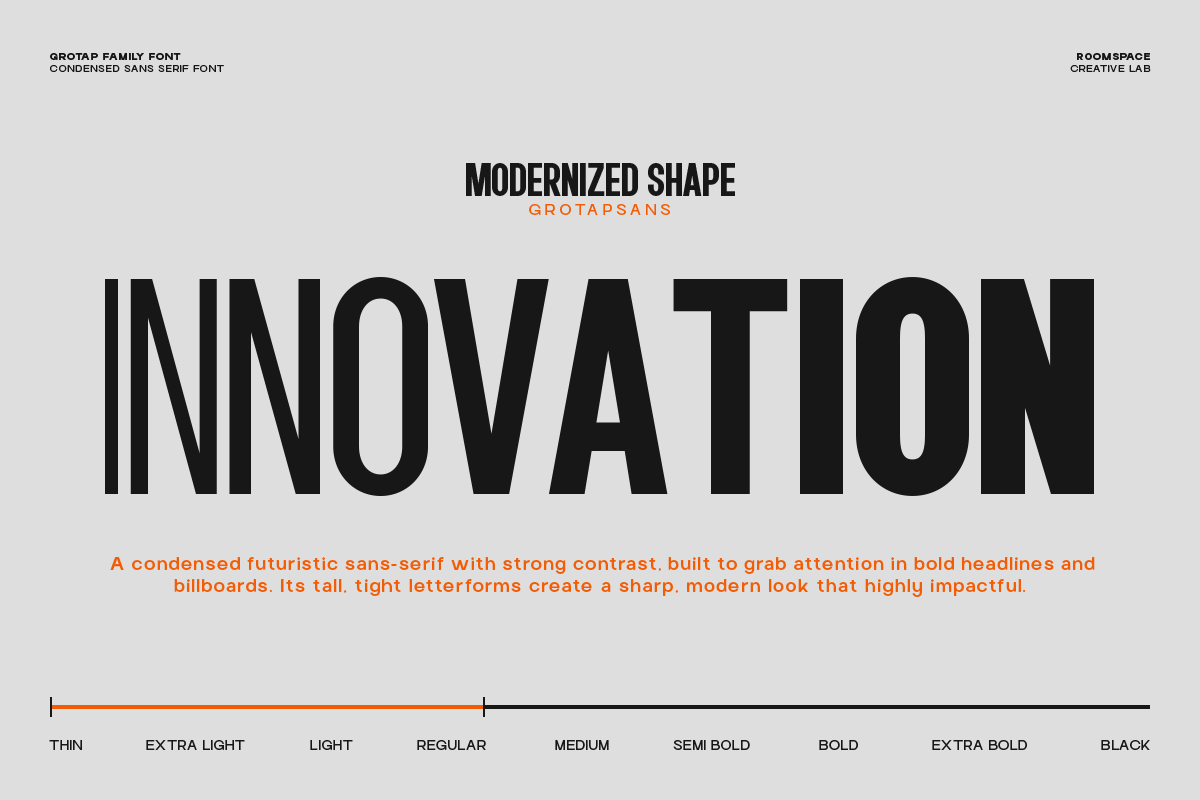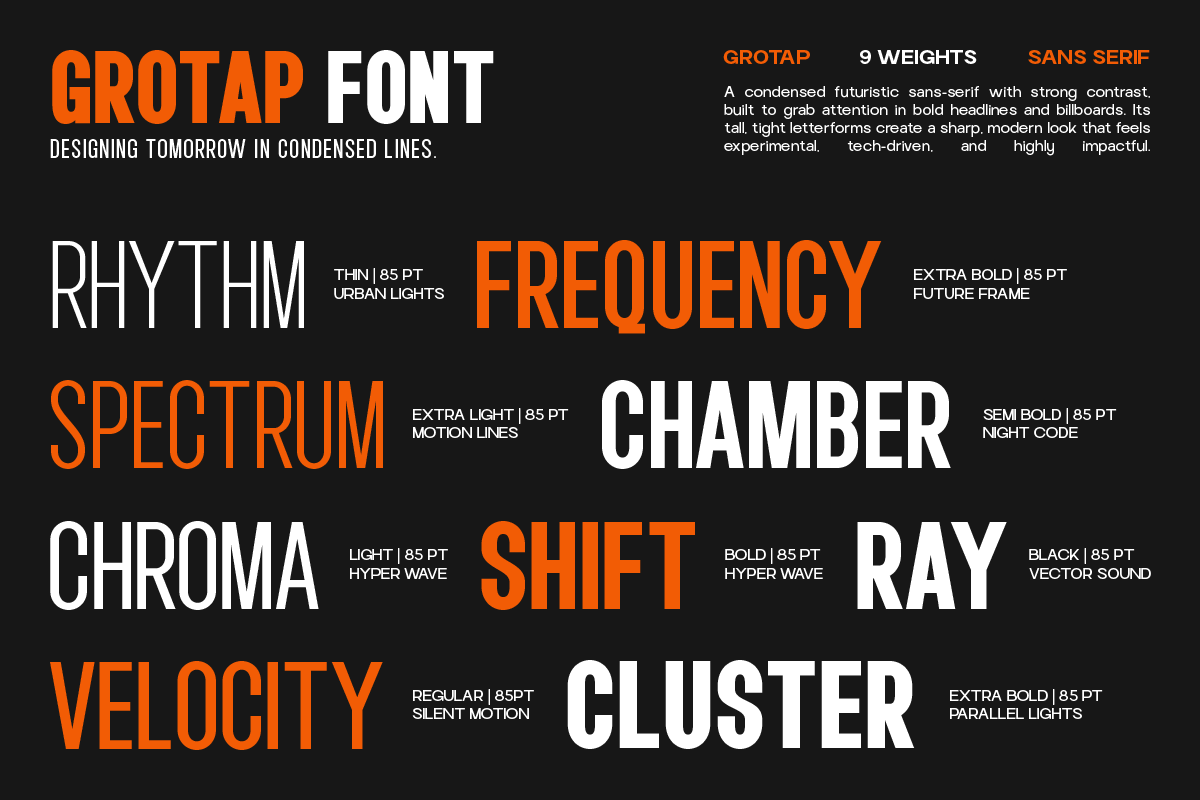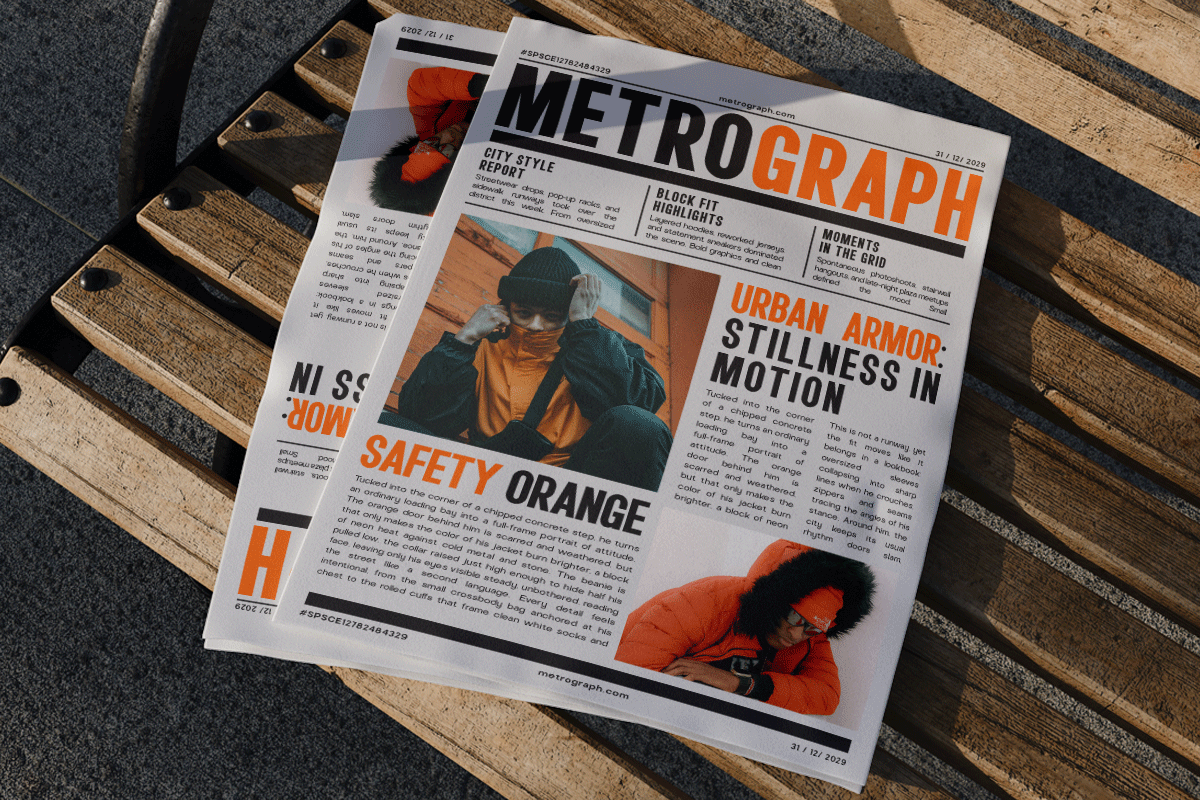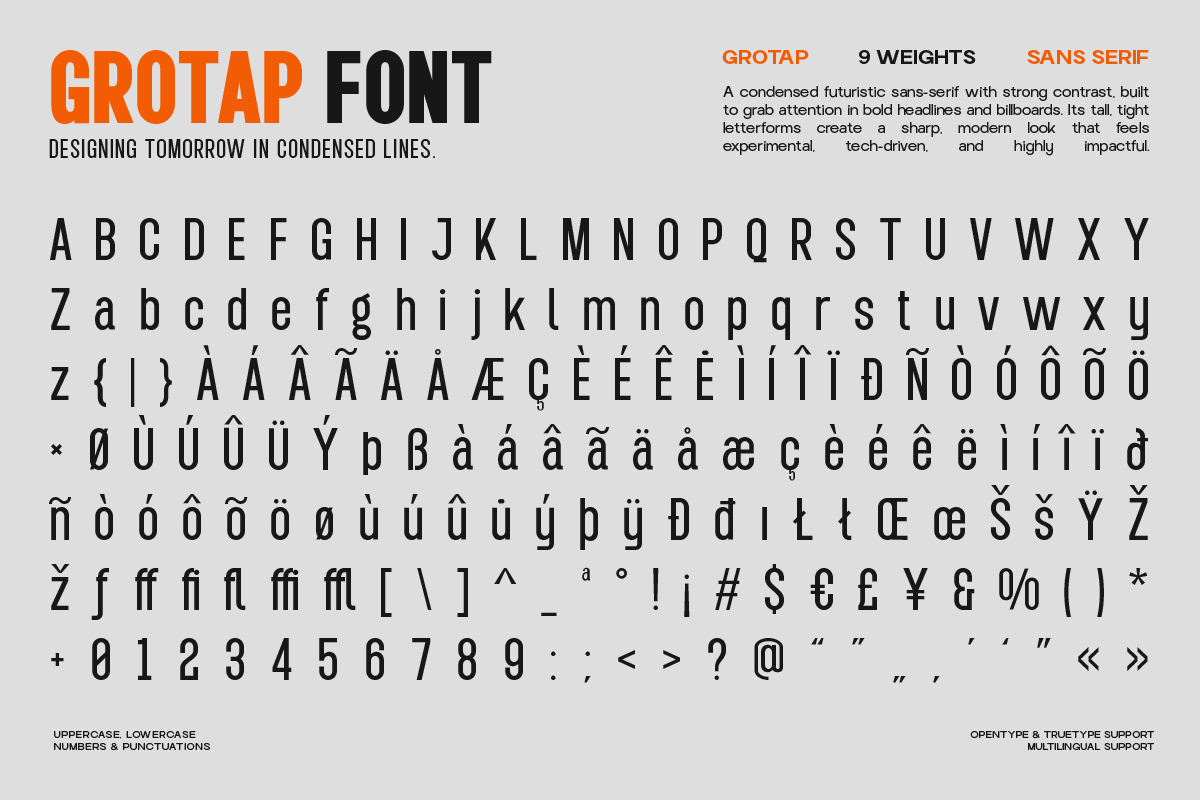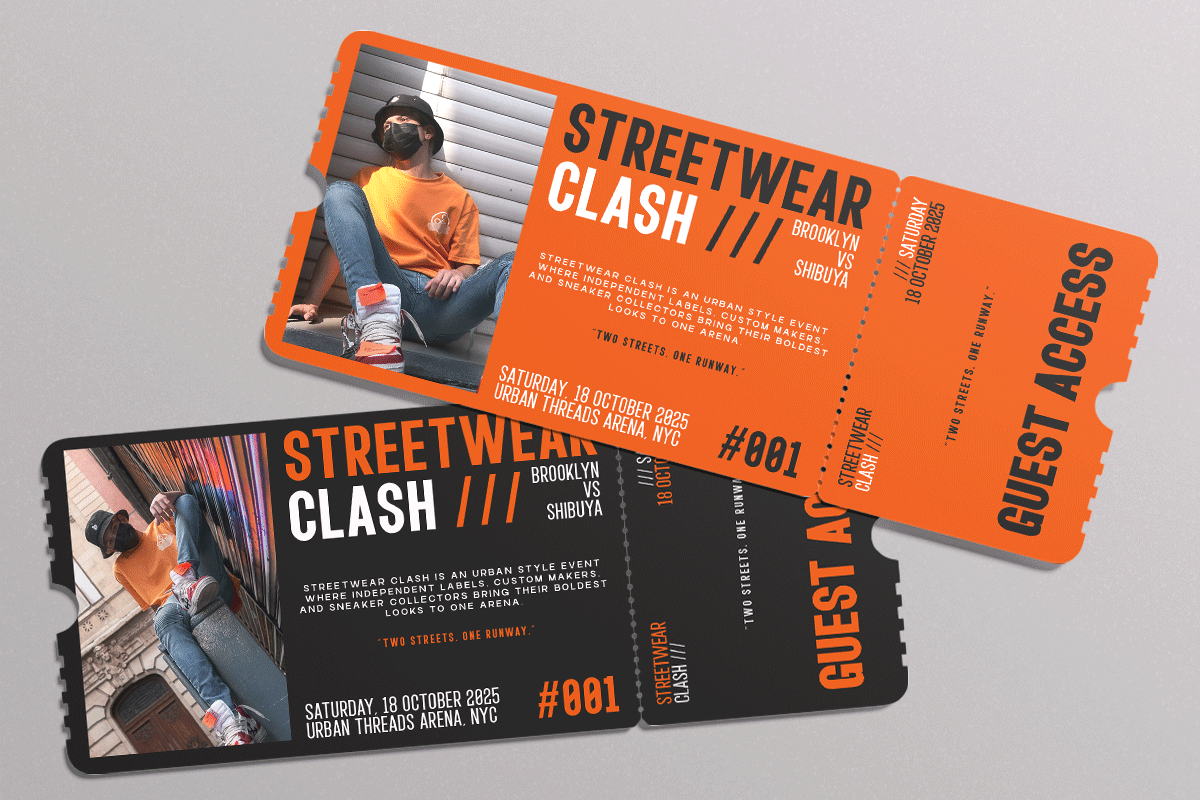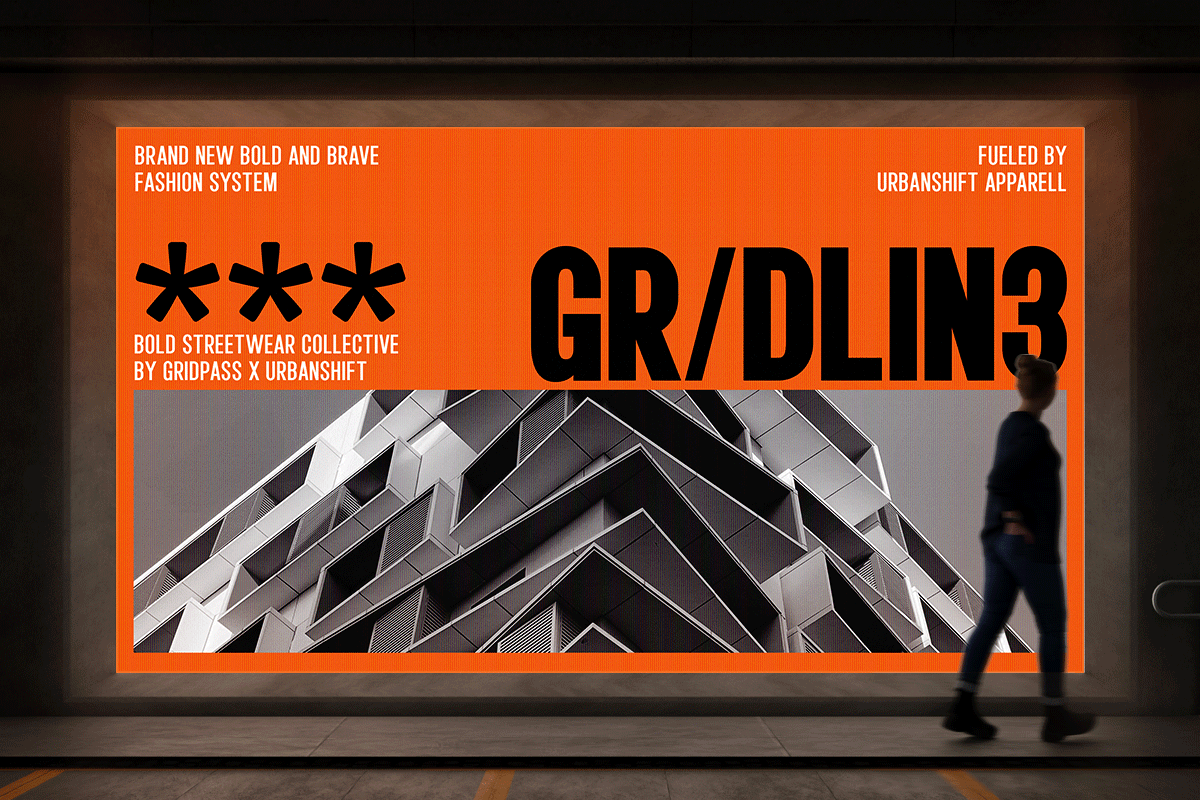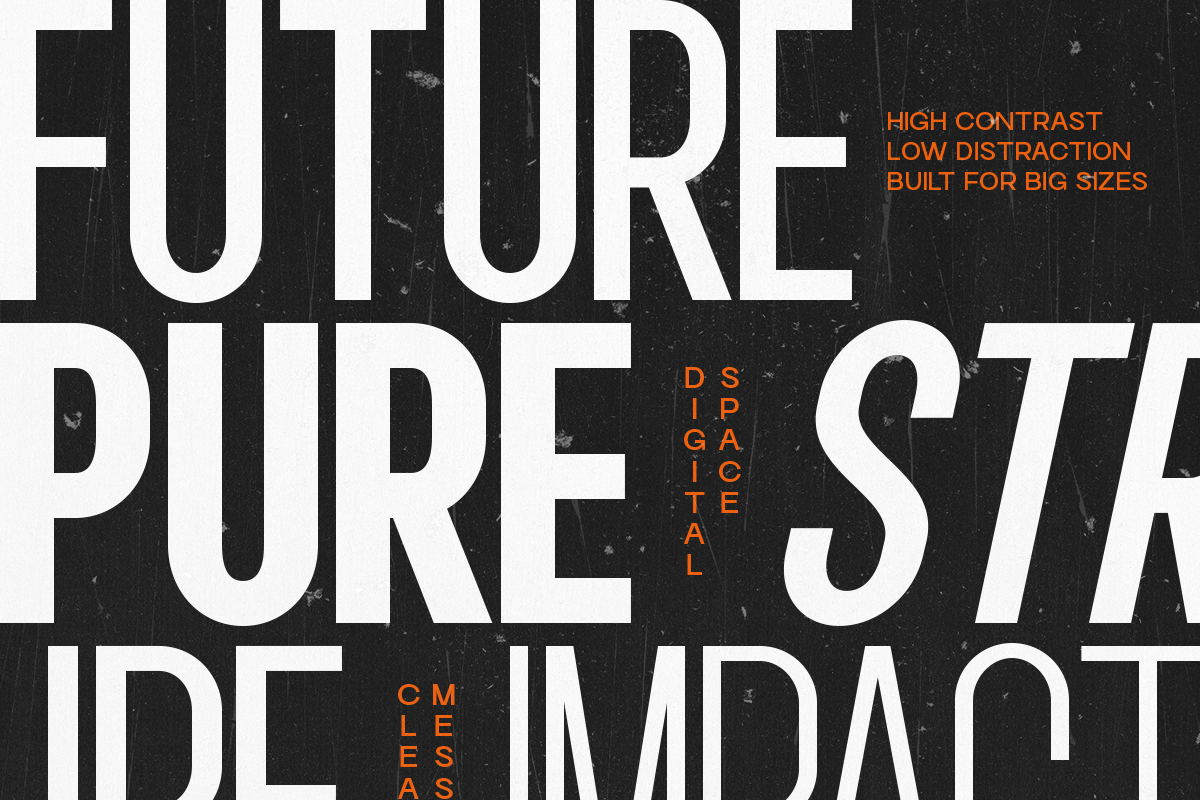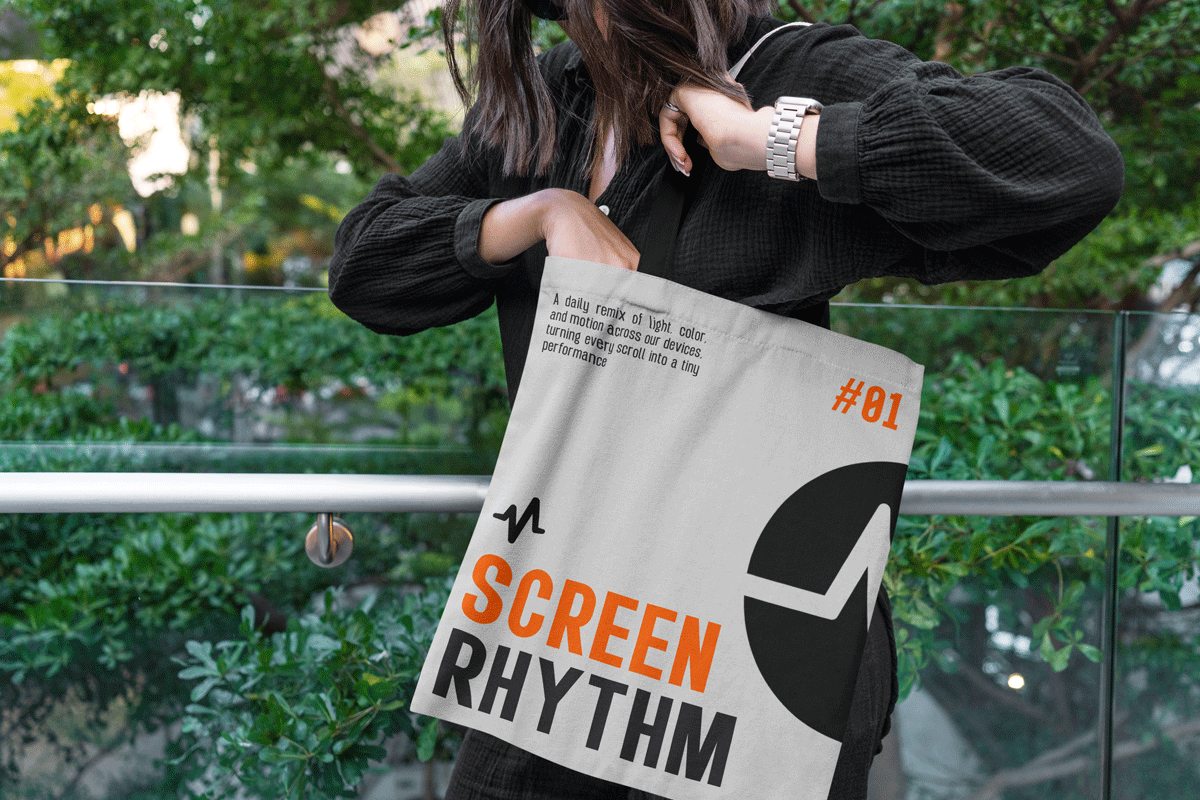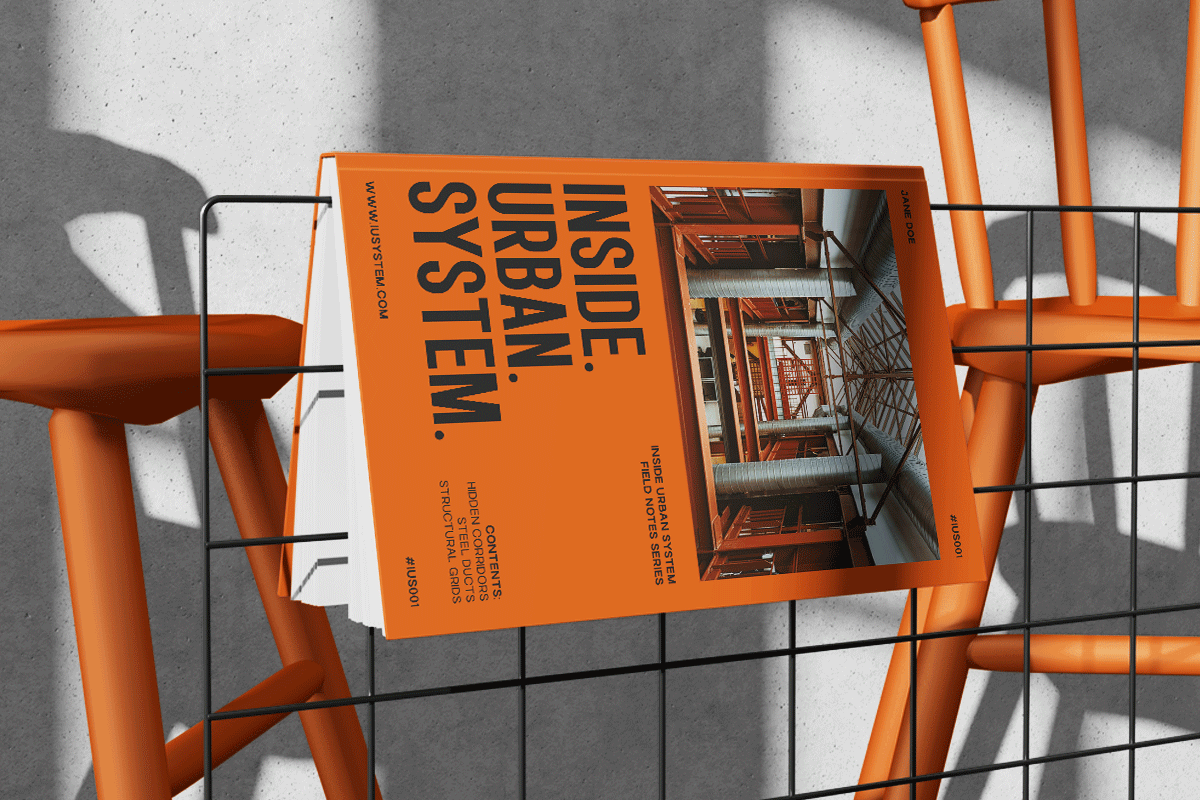
Grotap – A Modern Condensed Sans
A bold, modern condensed sans built for impactful headlines and contemporary branding.
Grotap a condensed sans-serif font family with a bold, modern spirit. Designed for powerful headlines and clean contemporary branding, Grotap delivers sharp vertical rhythm and strong typographic presence. With 9 versatile weights, it adapts beautifully to editorial layouts, posters, packaging, and digital design projects, giving your work a confident, elevated look.
- 9 weights
- Condensed modern sans-serif
Perfect For Branding, posters, magazine layouts, packaging, web design, social media, print advertising, and UI graphics.